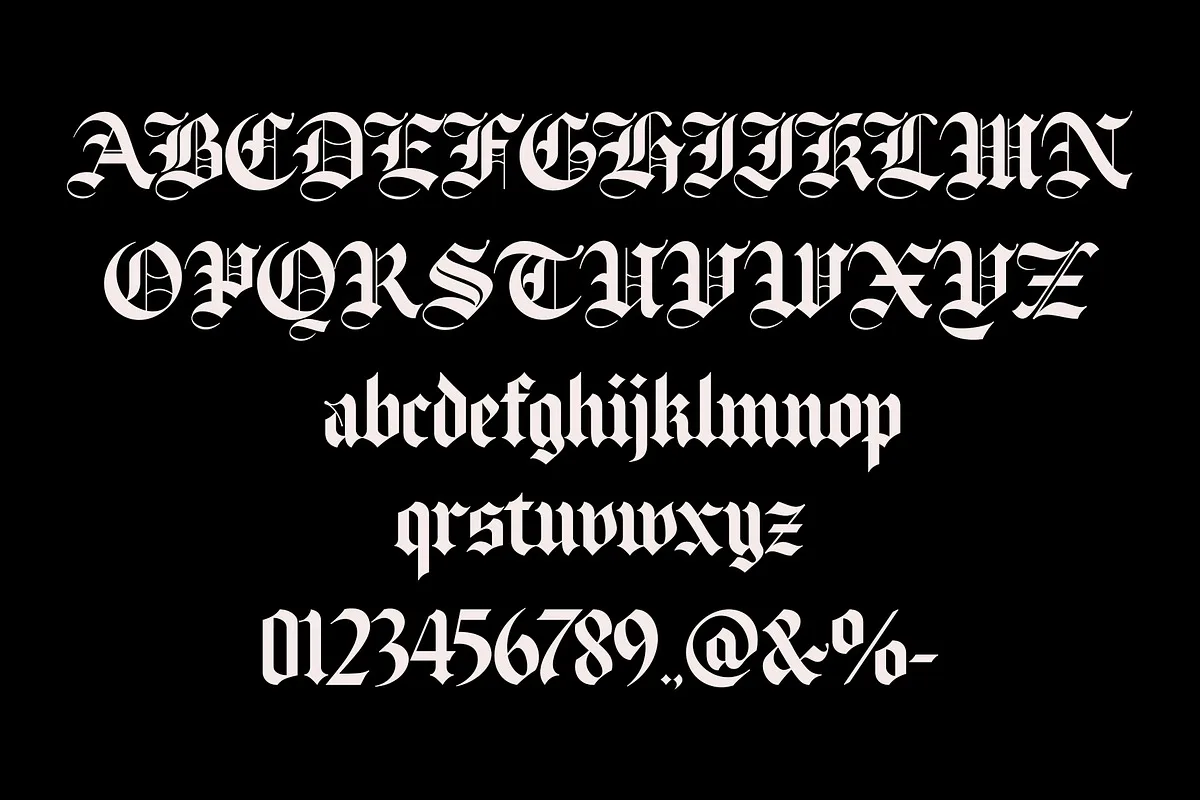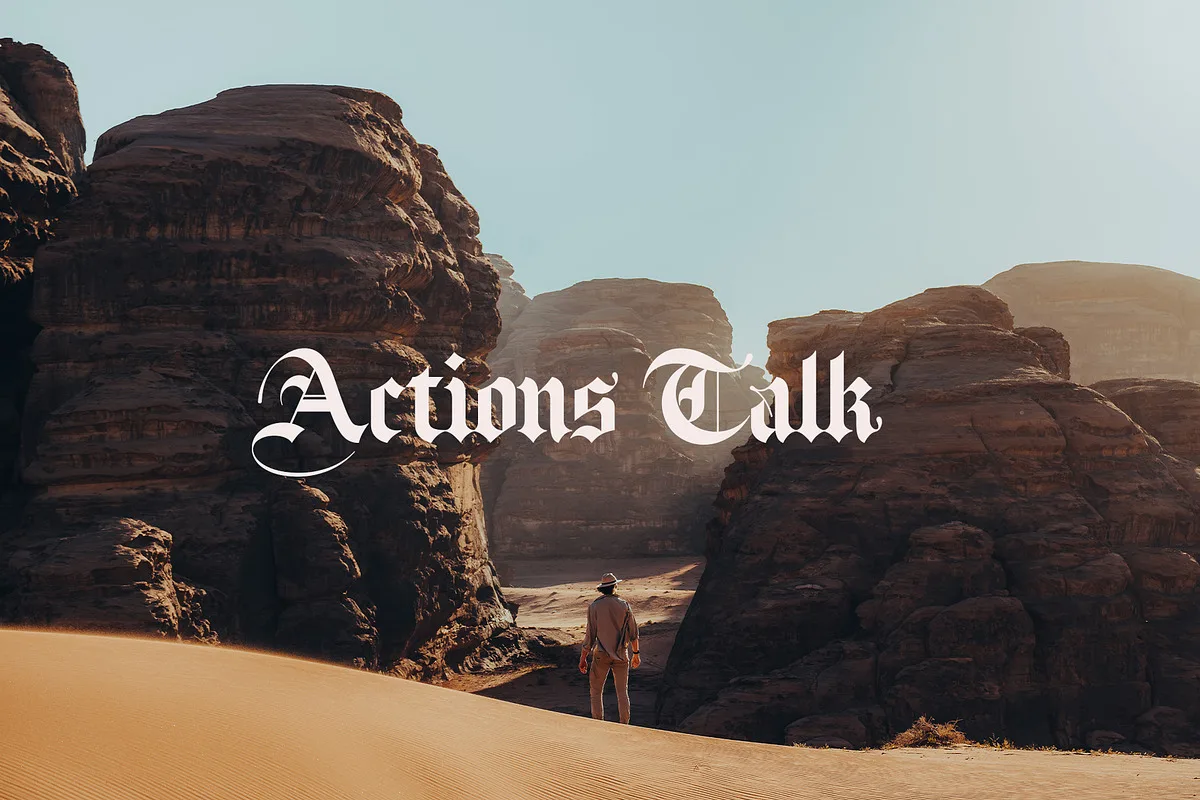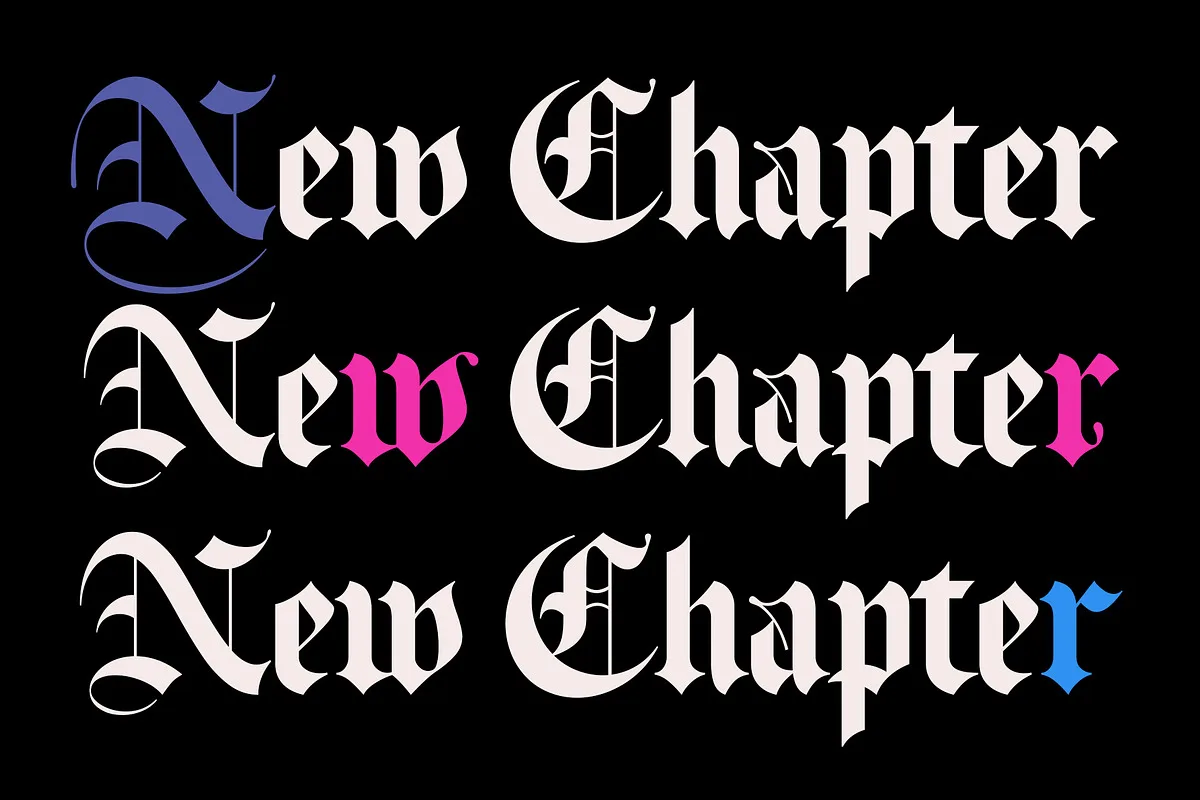
ED Fairville is a blackletter font with old English style that displays a classic look. It is perfect for your design needs such as poster design, logo design, branding, apparel, book, magazine, etc.
This font also has a stylistic set feature which makes the appearance of this font more attractive, and also other features such as ligatures and multi-language support which can perfect your designs with this font.